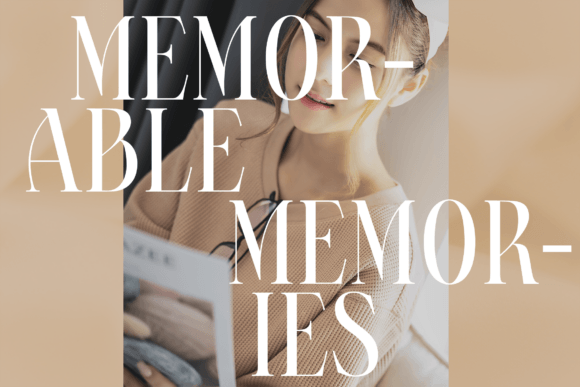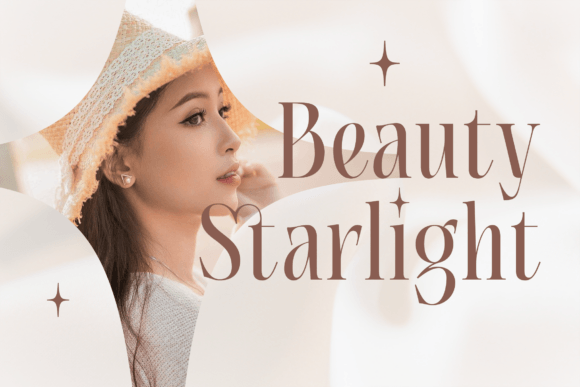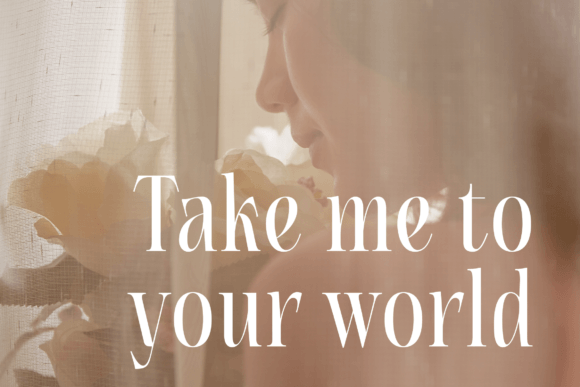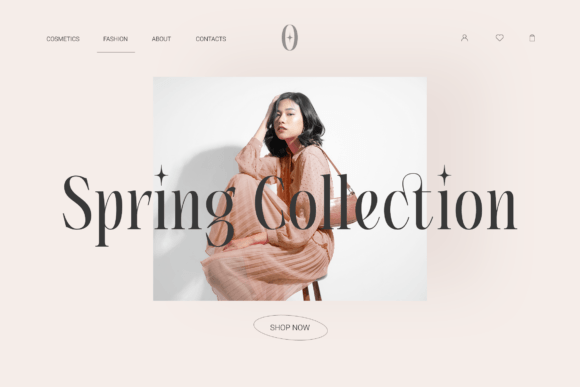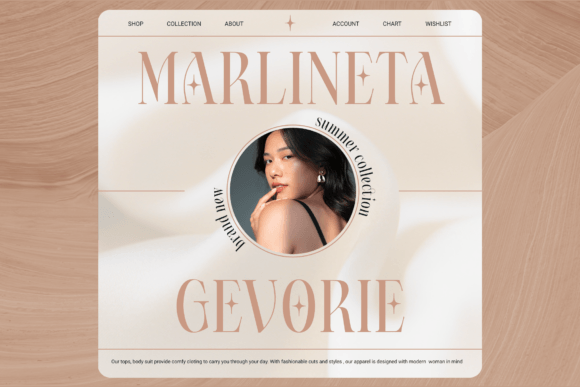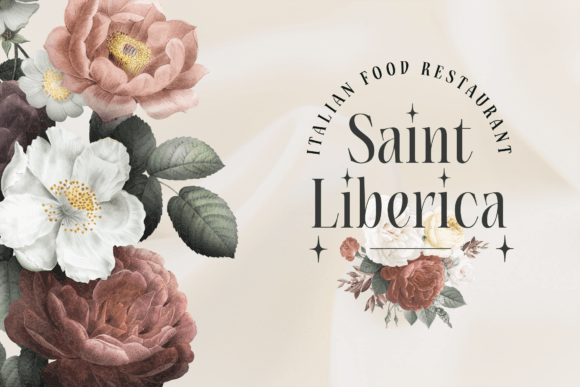
Introducing Giftcage Font: Elevate Your Typography with Elegance and Sophistication
In the world of design, typography plays a crucial role in conveying the message, tone, and personality of a brand or project. A well-chosen font can make all the difference in creating a lasting impression on your audience. If you’re a designer or crafter looking for a font that exudes luxury, class, and sophistication, look no further than Giftcage Font. In this article, we’ll explore the features and benefits of Giftcage Font, and how it can elevate your typography design to new heights.
What is Giftcage Font?
Giftcage Font is a premium font designed to meet the needs of designers and crafters who demand high-quality typography. This font comes with a range of features that make it perfect for a variety of projects, from luxury logos and branding to editorial design, magazines, and advertising.
Key Features of Giftcage Font
- Alternates and Ligatures: Giftcage Font comes with a range of alternates and ligatures, allowing you to combine characters to create a unique and perfect typography design.
- High-Quality Design: The font is designed with precision and attention to detail, ensuring that it looks great in any context.
- Versatile: Giftcage Font is suitable for a wide range of projects, including luxury logos, branding, editorial design, magazines, advertising, and more.
Giftcage Font is an incredibly versatile font that can be used for a wide range of projects. Here are some ideas to get you started:
- Luxury Logo and Branding: Create a sophisticated and elegant brand identity with Giftcage Font.
- Classy Editorial Design: Use Giftcage Font to add a touch of luxury to your editorial designs, such as magazines, newspapers, and books.
- Woman Magazine: Giftcage Font is perfect for women’s magazines, fashion publications, and lifestyle blogs.
- Cosmetic Brand: Create a beautiful and elegant brand identity for your cosmetic company with Giftcage Font.
- Fashion Promotional: Use Giftcage Font to create stunning fashion promotional materials, such as flyers, brochures, and posters.
- Art Gallery Branding: Giftcage Font is perfect for art galleries, museums, and exhibitions.
- Museum: Create a sophisticated and elegant brand identity for your museum with Giftcage Font.
- Historical or Architectural: Use Giftcage Font to add a touch of elegance and sophistication to your historical or architectural projects.
- Boutique Branding: Giftcage Font is perfect for boutique branding, including fashion boutiques, jewelry stores, and high-end retailers.
- Stationery Design: Create beautiful and elegant stationery with Giftcage Font, including letterheads, business cards, and envelopes.
- Blog Design: Use Giftcage Font to create a sophisticated and elegant blog design that stands out from the crowd.
- Modern Advertising Design: Giftcage Font is perfect for modern advertising design, including print ads, digital ads, and social media graphics.
- Card Invitation: Create stunning card invitations with Giftcage Font, perfect for weddings, birthdays, and other special occasions.
- Art Quote: Use Giftcage Font to create beautiful art quotes, perfect for social media, blogs, and websites.
- Home Decor: Giftcage Font is perfect for home decor projects, including wall art, signs, and decorative accessories.
- Book/Cover Title: Create stunning book covers and titles with Giftcage Font.
- Special Events: Use Giftcage Font to create elegant and sophisticated branding for special events, such as weddings, conferences, and festivals.
Why Choose Giftcage Font?
With so many fonts available, why choose Giftcage Font? Here are just a few reasons:
- Unique and Elegant: Giftcage Font is a unique and elegant font that will add a touch of sophistication to your projects.
- High-Quality Design: The font is designed with precision and attention to detail, ensuring that it looks great in any context.
- Versatile: Giftcage Font is suitable for a wide range of projects, making it a great addition to your font library.
- Easy to Use: Giftcage Font is easy to use and comes with a range of features, including alternates and ligatures, to help you create stunning typography designs.
In conclusion, Giftcage Font is a premium font that offers a range of features and benefits for designers and crafters. With its elegant and sophisticated design, versatility, and high-quality features, Giftcage Font is perfect for a wide range of projects. Whether you’re creating a luxury logo, editorial design, or advertising materials, Giftcage Font is sure to elevate your typography design to new heights. So why wait? Download Giftcage Font today and start creating stunning typography designs that will leave a lasting impression on your audience.